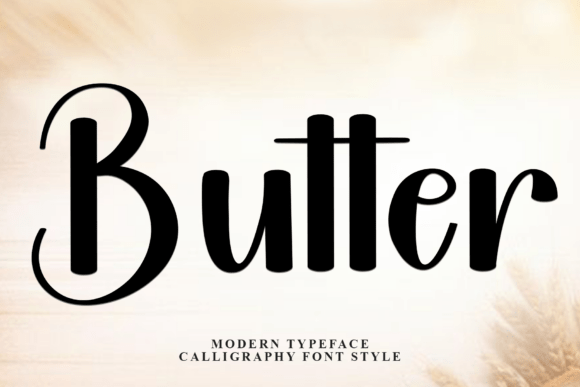
The Butter Font: A Game-Changer for Designers and Crafters
I’ll never forget the time I was working on a design project for a client who wanted a font that was both elegant and playful. I spent hours scouring the internet for the perfect font, but nothing seemed to fit the bill. That was until I stumbled upon the Butter font. Its unique, soft touch and distinctive strokes immediately caught my eye, and I knew I had found the one. In this article, I’ll share my experience with the Butter font, its features, and how to make the most of it in your designs.
A Personal Review: What I Love and What I Don’t
• ✅ Unique and eye-catching design: The Butter font stands out from the crowd with its soft, rounded edges and distinctive strokes.
• ✅ Versatile: This font is perfect for a wide range of design projects, from crafts to digital art.
• ✅ Variety of characters: The font comes with a range of characters, giving you plenty of options for creative expression.
• ⚠️ Limited use in formal designs: While the Butter font is perfect for creative projects, it may not be suitable for formal designs or professional documents.
• ⚠️ Some characters may not display properly: As with any font, some characters may not display properly in certain applications or platforms.
The Story Behind the Butter Font
The Butter font was designed by a team of creatives who wanted to create a font that was both unique and versatile. Inspired by the natural world, the font features soft, rounded edges and distinctive strokes that give it a special character. The designers aimed to create a font that would be perfect for creative projects, crafts, and other artistic endeavors.
What is the Butter font? The Butter font is a beautiful and eye-catching font designed with a soft, unique touch.